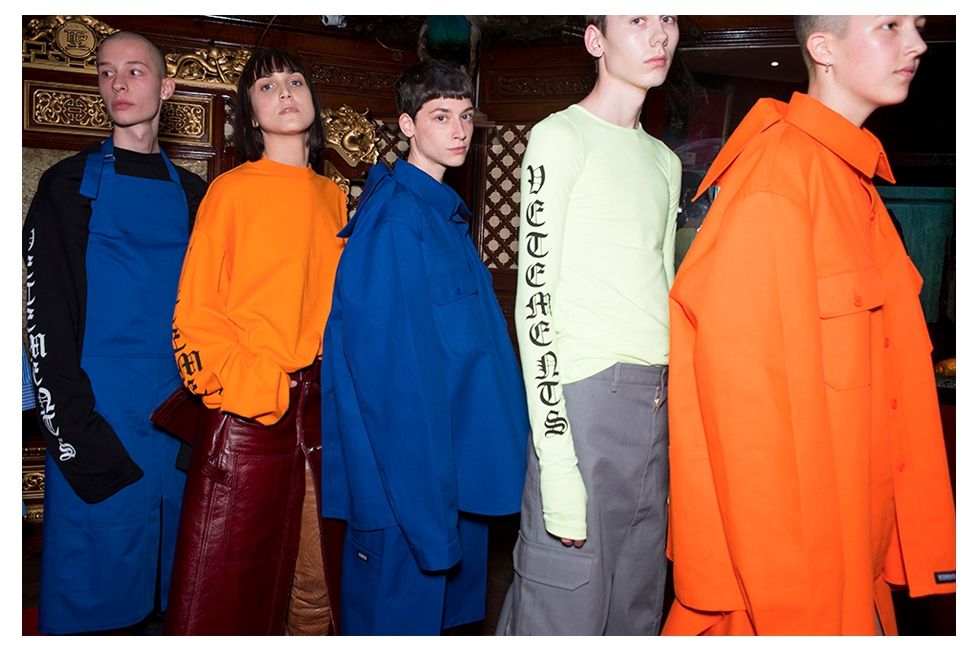
Instatrend Alert: Gothic Font 10 Instagram feeds reinterpreting blackletter
Just look around – or, even better, scroll your Instagram feed – and you'll reckon the rise of the gothic script in high fashion is kind of unstoppable.
A prerogative of the goth imagery since ever and on several occasions "stolen" by streetwear, this year we've seen it basically everywhere, from Justin Bieber's and Kanye West's merch to Gucci SS17 show at presented at MFW a few days ago. Long story short, no matter what your style is, blackletter is the key.
This bold calligraphy reminiscent of the medieval times also goes by the name Old English, and, in a way, his reappearance on the catwalks is just a fragment of a broader scenario, that of the heavy-metal imagery's comeback brought up by Vetements since AW16. This kind of iconography got then in the spotlight with the likes of some of the most influential pop icons of the moment. Among these, Justin Bieber, who used an Old English font for his Purpose Tour merch, Kanye West, whose merch sweatshirts proudly recites "The Life of Pablo" in gothic characters, and Rihanna, who introduced this font in her line Fenty x Puma – topping a sporty-goth collection all off. Not to mention the hip-hop crew A$AP Mob had proposed this font in a merch collection in 2013.
Oscillating between lux contexts and street trends, today the gothic font has spread especially among skaters and it contaminates sportswear a lot. In addition to the usual suspects like Marcelo Burlon and, of course, the endless trendsetter Vetements, among the most interesting brands of this calligraphy a trademark one for sure is Misbhv, Polish brand with a scratchy, very cool and contemporary aesthetic, made up of patent jackets, oversized leather jackets and sweatshirts over which the blackletter slogan "hard core" stands out. Last but not the least, there're brands like Спутник 1985 (Sputnik, 1985), upcoming Russian-born streetwear brand, Italian institution GCDS, skaters favourite Palm Angels, and the Australian brand DAISY. Founded by the couple Gibson and Reene Fox, for the second season – entitled Human Emotion – the brand shows off a gritty yet somehow delicate 90s-inspired narrative that winks at Lolita and does not miss gothic characters here and there.
#1 Chiara Capitani
#2 Rowena Xi Kang
#3 Tereza Hascakova
#4 Regina Aniki
#5 Emily Elaine Oberg
#6 Sarah Snyder
#7 Adrianne Ho
#8 Patrycja Szklarczyk
#9 Viktor Kortsen
#10 Sita Abellan